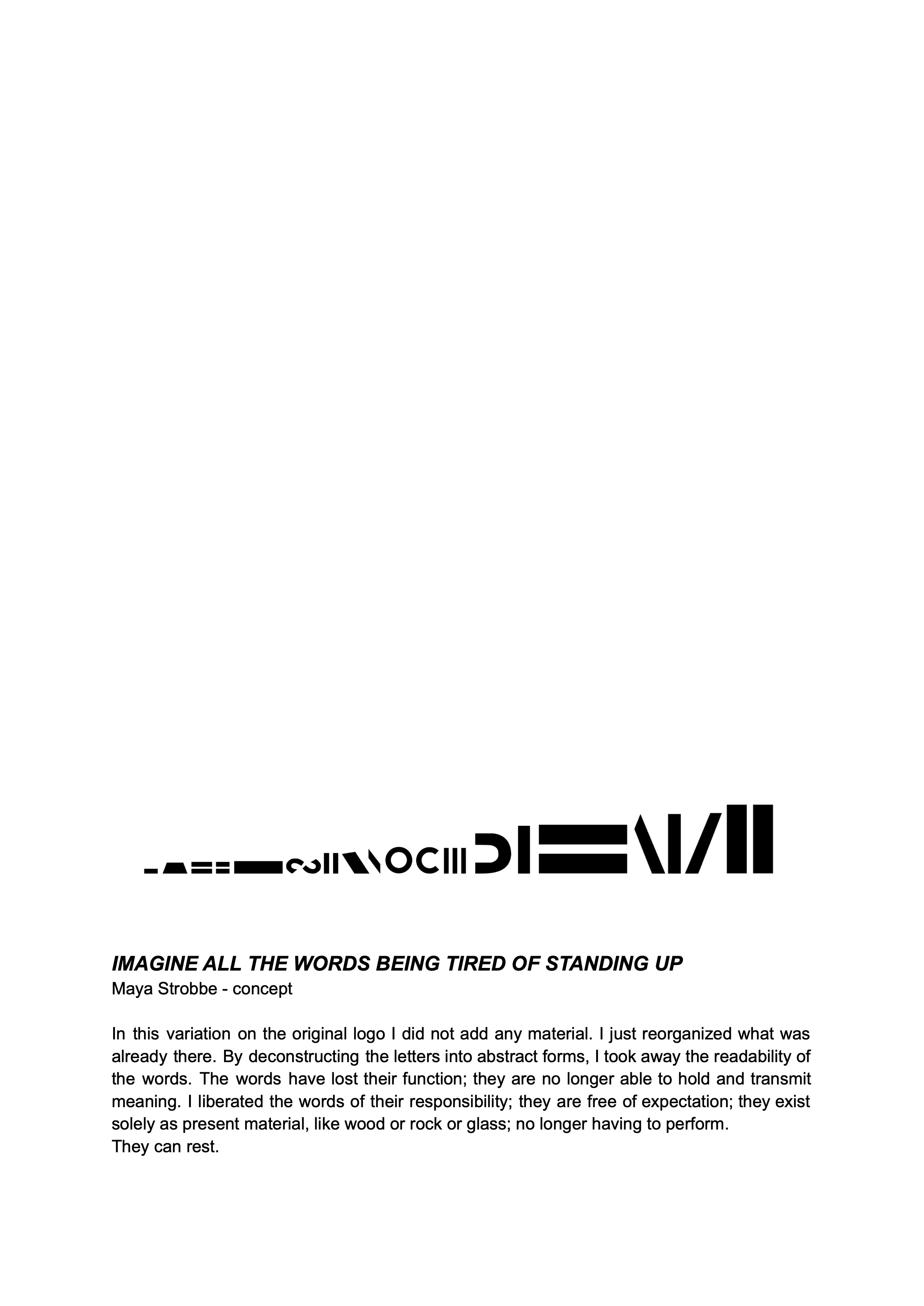
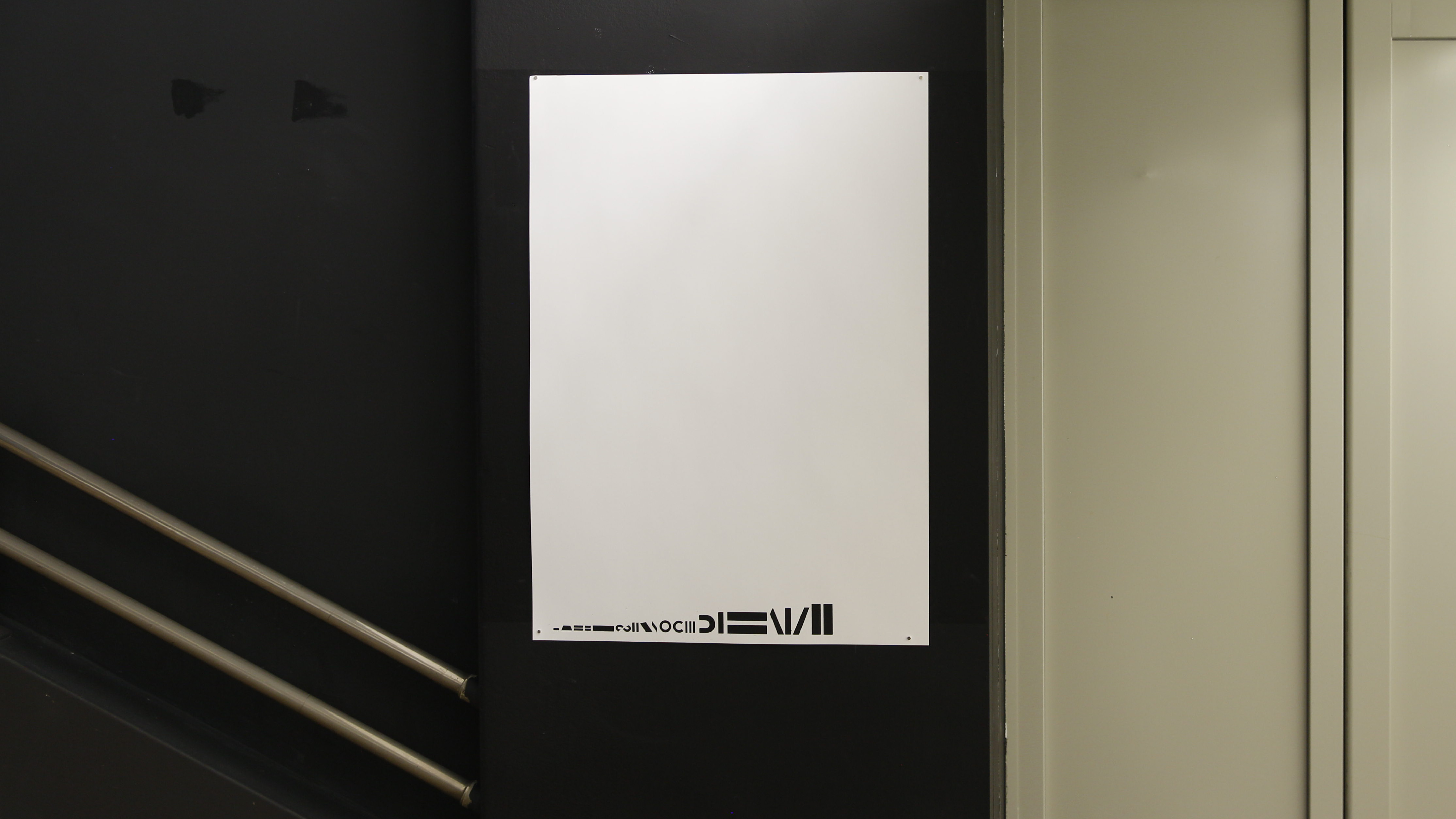
Slide a Contest within a Context was part of the exhibition proposal Wor(l)d Fatigue for Art Contest 2022. TLSD launched an open call for graphic designers, duplicating Art Contest’s open call for artists. The graphic designers were invited to redesign the logo of Art Contest trying to imagine all the words being tired of standing up. The winning logo was silk screened and hung in the Vanderborght building’s hallways. The logo was to be used by Art Contest for all online communication for the duration of the exhibition.
Winning logo by Maya Strobbe.
Original logo and Maya’s proposal
Wor(l)d Fatigue